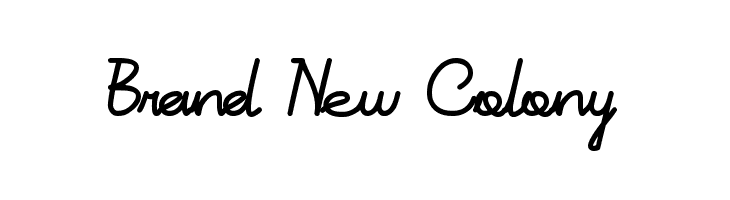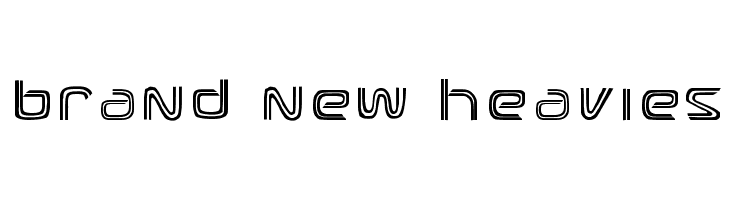
( Fontomen - www.algonet.se/~j-j/ )
A futuristic, geometric font with a bold, layered design.
( Fonts by Origin Type )
A bold, playful font with rounded, hand-drawn characters.
A bold, playful handwritten font with rounded, consistent strokes.
A bold, gothic Blackletter font with intricate, angular designs.
( Fonts by Ahwe Project )
A bold, modern font with tall, condensed characters and consistent stroke width.
( Hazel Abbiati - diamondidiocy.tumblr.com )
A bold, pixelated outline font with a retro digital aesthetic.
( Hazel Abbiati - diamondidiocy.tumblr.com )
A pixelated, retro-style font with a digital, geometric appearance.